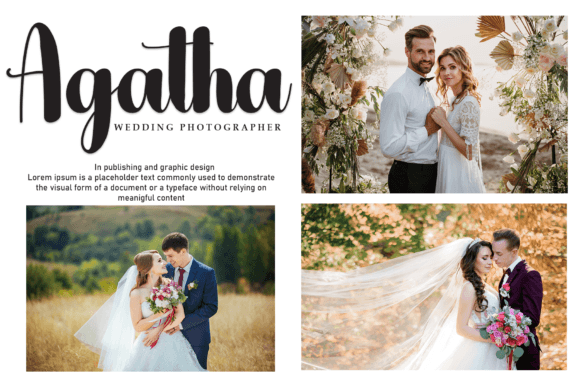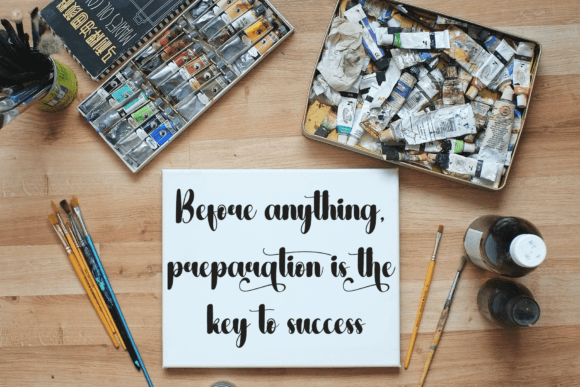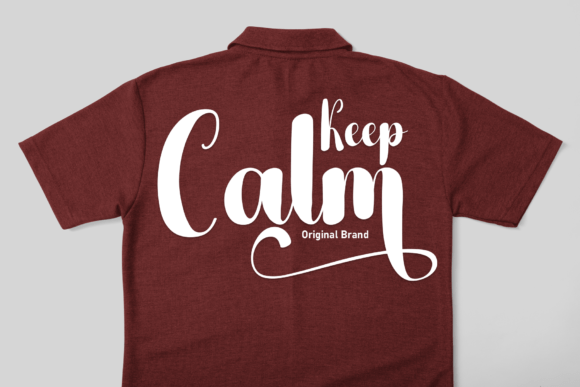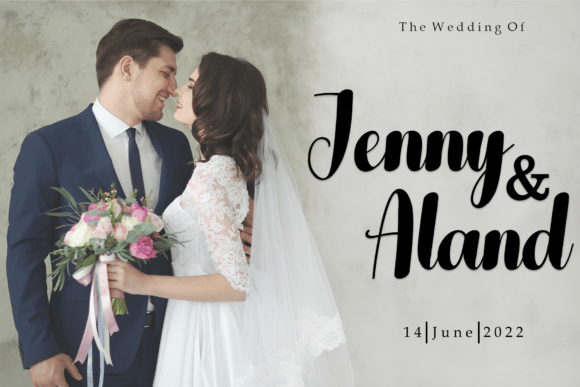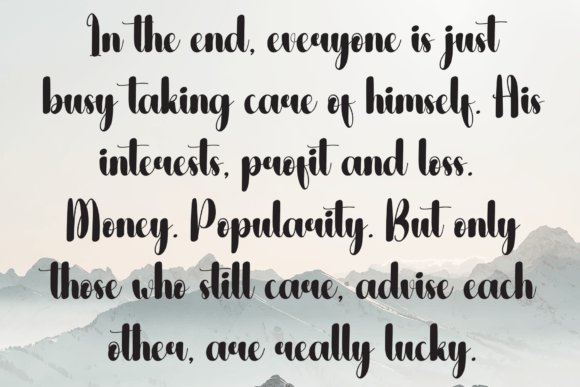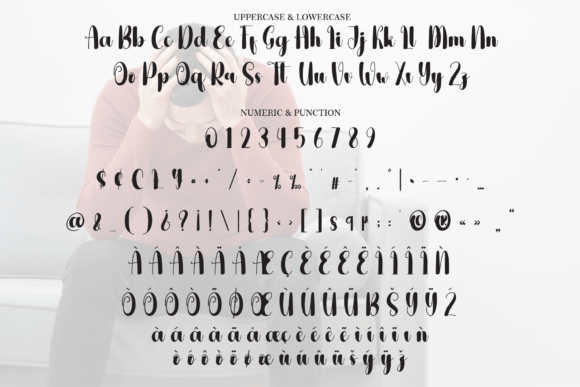
Introducing Antisocial Font: The Sweet and Friendly Handwritten Font for Your Design Needs
Are you a designer or crafter looking for a font that can add a personal touch to your designs? Look no further than Antisocial Font, a sweet and friendly handwritten font that’s perfect for creating beautiful wedding invitations, cards, and more. In this article, we’ll take a closer look at Antisocial Font, its features, and how you can use it to elevate your designs.
What is Antisocial Font?
Antisocial Font is a fresh and casual handwritten font that’s designed to bring a lovely touch to your designs. It’s a unique and charming font that’s perfect for creating a warm and inviting atmosphere in your designs. Whether you’re designing wedding invitations, greeting cards, or any other type of project, Antisocial Font is an excellent choice.
Key Features of Antisocial Font
So, what makes Antisocial Font so special? Here are some of its key features:
- Handwritten style: Antisocial Font has a beautiful handwritten style that’s perfect for creating a personal touch in your designs.
- Fresh and casual: This font has a fresh and casual feel that’s ideal for creating designs that are relaxed and informal.
- Perfect for wedding designs: Antisocial Font is an excellent choice for designing wedding invitations, programs, and other wedding-related materials.
- Easy to read: Despite its handwritten style, Antisocial Font is easy to read, making it perfect for body text and other long-form content.
How to Use Antisocial Font in Your Designs
Now that we’ve covered the features of Antisocial Font, let’s talk about how you can use it in your designs. Here are some ideas to get you started:
- Wedding invitations: Use Antisocial Font to create beautiful wedding invitations that set the tone for the big day.
- Greeting cards: Antisocial Font is perfect for designing greeting cards for birthdays, holidays, and other special occasions.
- Social media graphics: Add a personal touch to your social media graphics with Antisocial Font.
- Blog posts: Use Antisocial Font to add a personal touch to your blog posts and make them more engaging.
Tips for Getting the Most Out of Antisocial Font
Here are some tips for getting the most out of Antisocial Font:
- Pair it with other fonts: Antisocial Font pairs well with other fonts, so don’t be afraid to experiment with different combinations.
- Use it for headings and body text: Antisocial Font is easy to read, making it perfect for both headings and body text.
- Experiment with colors: Antisocial Font looks great in a variety of colors, so don’t be afraid to experiment with different color schemes.
In conclusion, Antisocial Font is a sweet and friendly handwritten font that’s perfect for designers and crafters looking to add a personal touch to their designs. With its fresh and casual style, Antisocial Font is ideal for creating beautiful wedding invitations, cards, and more. Whether you’re a seasoned designer or just starting out, Antisocial Font is an excellent choice for any project.